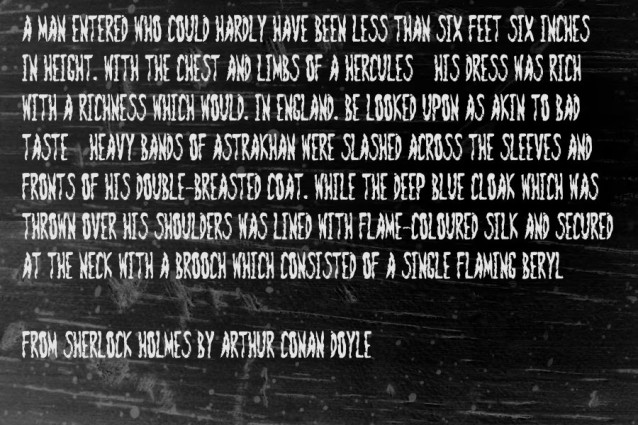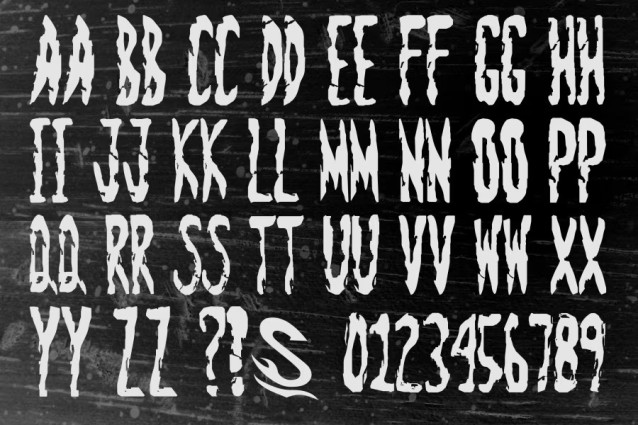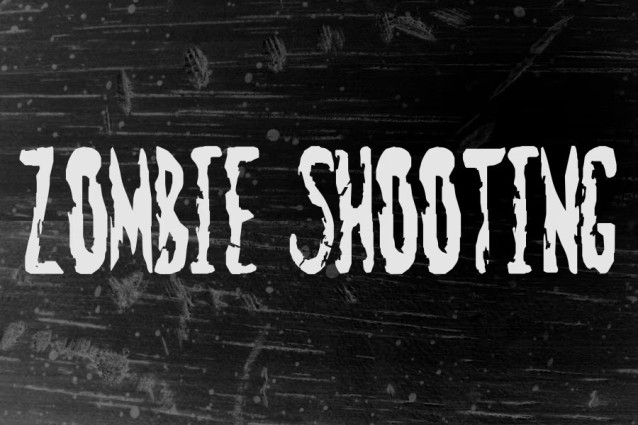
Zombie Shooting Font
Zombie Shooting Font is a display typeface dripping with horror-inspired energy. Its torn and dripping strokes evoke the look of hand-painted signs for B-movie posters or zombie-themed attractions, with irregular edges and a touch of grit. Each character appears to have been hastily brushed on, adding urgency and menace.
The letters are tall and narrow with exaggerated terminals and rough textures. The uneven rhythm and distressed surfaces give words a chaotic cadence, while the heavy weight maintains legibility even at larger sizes.
This font is ideal for Halloween party flyers, horror film titles, survival-themed games or novelty packaging. Use it anywhere you need an offbeat, grungy voice – from posters and album covers to merchandise and logos. It will inject drama and a sense of the macabre into your layouts without sacrificing readability.